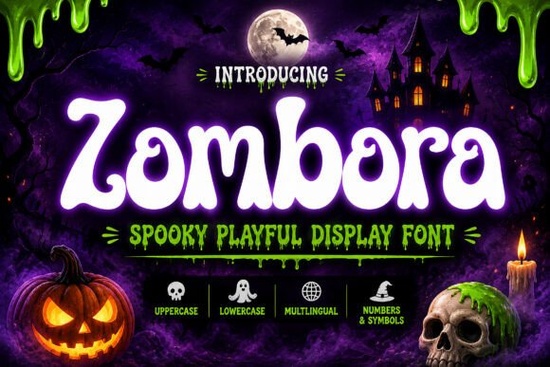
If you're on the lookout for a font that captures the spooky yet playful essence of Halloween, Zombora Font is a great choice. This unique display font combines bold, chunky shapes with a quirky, spooky vibe, making it perfect for a variety of creative projects.
Why Choose Zombora Font?
Zombora Font stands out with its distinctive blend of horror and playful energy. It's designed to add a bold and memorable touch to your designs, whether you're working on Halloween posters, party invitations, or kids' branding. The font’s chunky, fun shapes make it ideal for creating eye-catching titles and graphics that are both spooky and cute.
What Makes Zombora Font Unique?
One of the key features of Zombora Font is its ability to bring a creepy-cute personality to your designs. The bold, chunky letters and quirky style make it perfect for adding a touch of horror with a playful twist. Whether you're designing for a Halloween party, creating seasonal merchandise, or just looking to add a bit of spookiness to your project, Zombora Font can help you achieve that unique look.
Perfect For a Variety of Projects
Zombora Font is versatile and can be used in a wide range of creative projects. Here are some ideas:
- Halloween Posters: Create eye-catching posters for Halloween events or parties.
- Party Invitations: Design fun and spooky invitations for themed gatherings.
- Kids Horror Packaging: Add a playful, spooky touch to packaging for kids' products.
- Stickers & Labels: Make custom stickers and labels for festive decorations.
- T-shirt Designs: Print unique and fun T-shirts for Halloween or any other occasion.
- Social Media Graphics: Enhance your social media posts with spooky and playful graphics.
- Branding Projects: Use Zombora Font for branding that needs a bold, memorable touch.
- Merchandise Design: Create standout merchandise like mugs, tote bags, and more.
- Book Covers: Design book covers with a spooky and playful theme.
- Fun Seasonal Crafts: Add a unique touch to your seasonal crafts and DIY projects.
What’s Included in Zombora Font?
Zombora Font comes with everything you need to get started on your creative projects:
- Uppercase Letters: Bold and chunky uppercase letters for impactful titles.
- Lowercase Letters: Playful lowercase letters for a more casual and friendly look.
- Numbers & Punctuation: Complete set of numbers and punctuation marks for versatility.
How to Use Zombora Font in Your Designs
Using Zombora Font in your designs is easy and can add a lot of character to your projects. Here are some tips to get the most out of this font:
- Choose the Right Background: Pair Zombora Font with a contrasting background to make your text stand out. Dark backgrounds with light text or vice versa work well.
- Experiment with Colors: Use vibrant, bold colors to enhance the playful and spooky vibe. Think of classic Halloween colors like orange, black, and purple.
- Test Different Sizes and Spacings: Play around with different font sizes and spacings to find the best fit for your project. Zombora Font works well in both large and small sizes.
Final Tips for Using Zombora Font
To make the most of Zombora Font, keep these final tips in mind:
- Stay Consistent: Use Zombora Font consistently throughout your project to maintain a cohesive and professional look.
With Zombora Font, you can add a unique and playful touch to your Halloween and seasonal projects. Give it a try and see how it can transform your designs into something truly special.